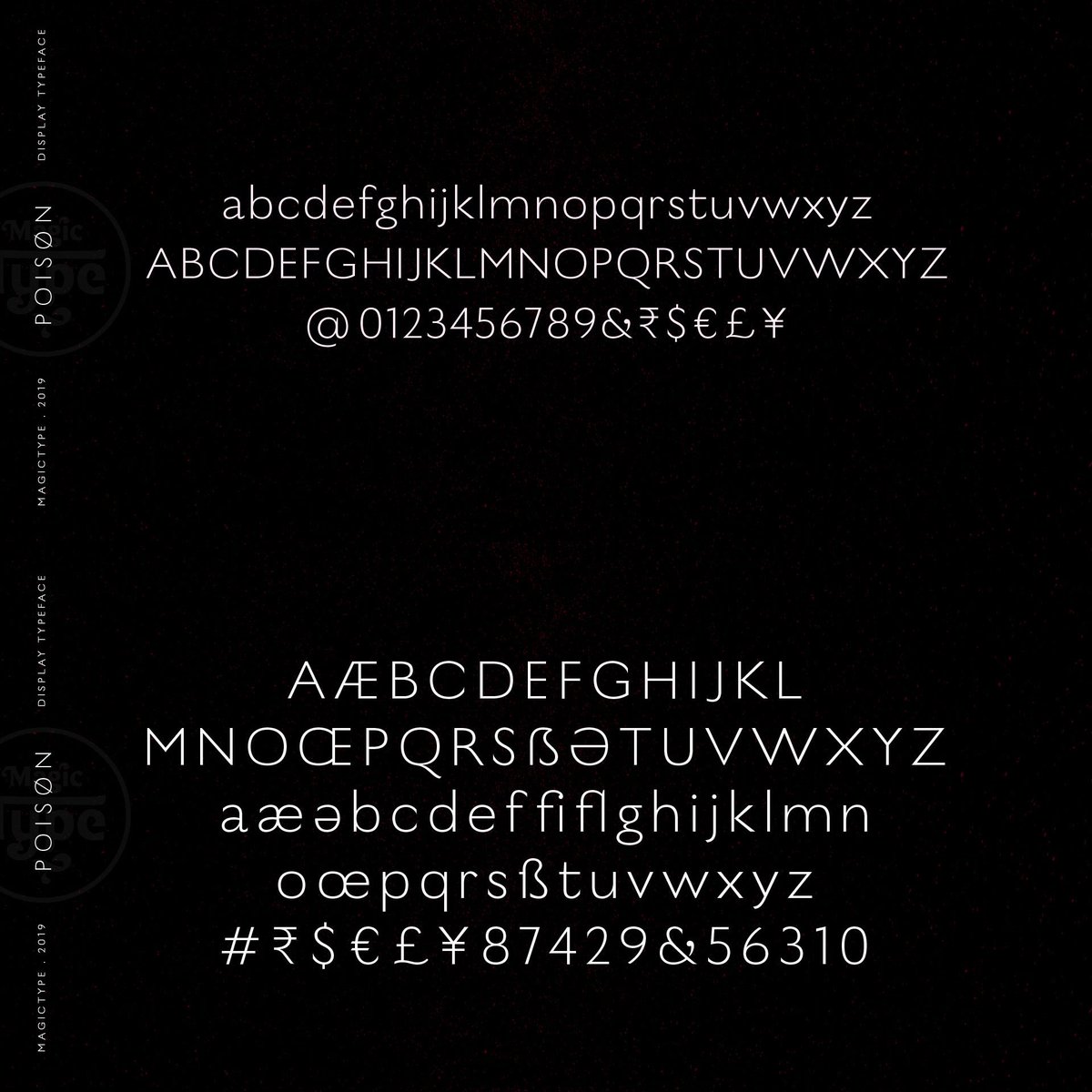
Free and Premium Quality Fonts - Best Premium FontsHumanist sans serif typefaces show evidence of a human holding a pen. Made by designer and illustrator greg eckler camisado black is a humanist sans serif font with transitional tendencies download page. Humanist sans serif fonts tend to pair well with old style serifs sometimes referred to as humanist serifs.
They have roots in calligraphy and evoke a feeling of warmth and personality in contrast to geometrics and neo grotesques which can feel cold and sterile.
Humanist sans serif font download. Download the sans serif font by casady greene. Amazing collection humanist fonts in web format for you design project. If you are seeing this message you probably have an ad blocker turned on. Regular and bold weights with corresponding italics form a standard computer font family.
Two narrow styles regular and bold are intended for documents that require tight set. Junction by designer caroline hadilaksono was inspired by the creators favorite humanist fonts including myriad and ff scala sans. A humanist sans serif font cloud by typomancer is incredibly versatile with five weights. Humanist sans serif free download.